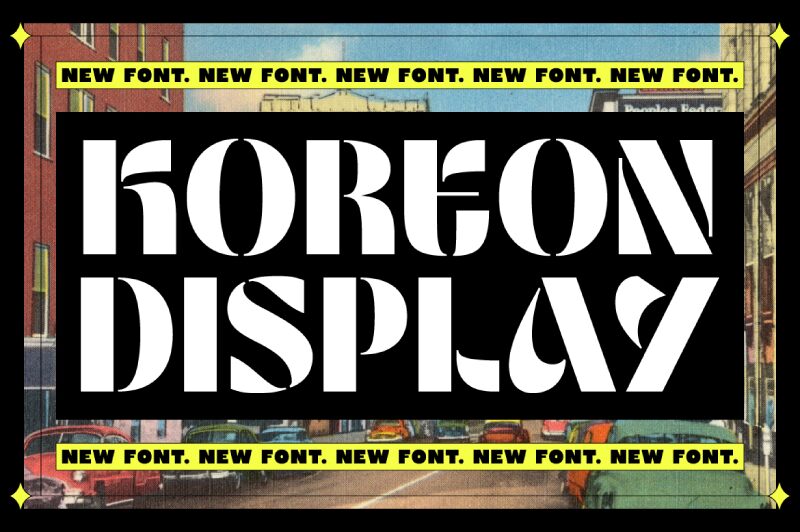
Koreon Display DEMO
Koreon Display font by Prioritype Co is a free retro display typeface with a bold, inky swagger. Its thick, sculpted curves and sudden, chiseled cuts create a rhythm that feels both theatrical and modern, like vintage marquee letters sharpened for the digital age. The tight spacing and chunky forms pack real visual weight, so even a short word hits like a logo.
Using Koreon Display, your headlines and wordmarks instantly get that stylized, throwback drama that grabs attention on posters, branding, album covers, packaging, and editorial titles. This free font shines on social graphics and event promos where you want a strong, memorable name to dominate the layout. For balance, pair Koreon Display with a simple, clean sans serif in smaller sizes to keep your supporting text crisp and legible.